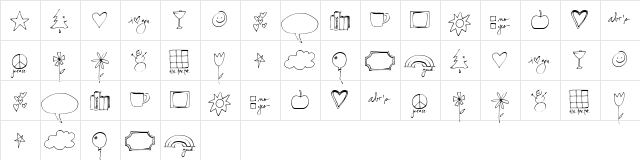
CK Ali Doodle Regular Font Preview
CK Ali Doodle Regular
Design Context for CK Ali Doodle Typeface
CK Ali Doodle is a composed and adaptable typeface that performs quietly and consistently across a wide range of design contexts.
Pro Tip: Use CK Ali Doodle in both headline and body roles to test its range before committing to a single application.